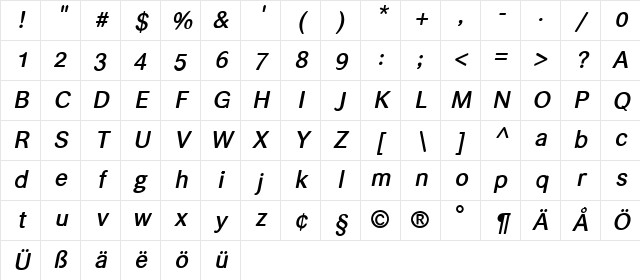
helvari Medium Italic
Foundry: loosy (fabian pfeifhofer)
Designer: loosy (fabian pfeifhofer)
Design Context for helvari
helvari is a composed and adaptable typeface that performs quietly and consistently across a wide range of design contexts. The slanted form adds forward momentum and visual energy.
Pro Tip: Use helvari for emphasis, pull quotes, and subheadings where its slanted energy can add rhythm to the layout.
Who designed the helvari Medium Italic font?